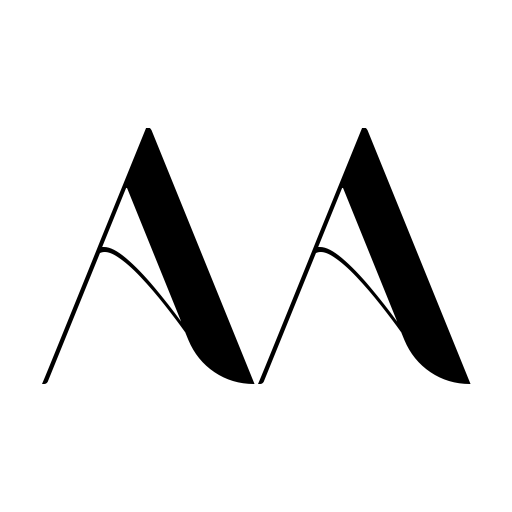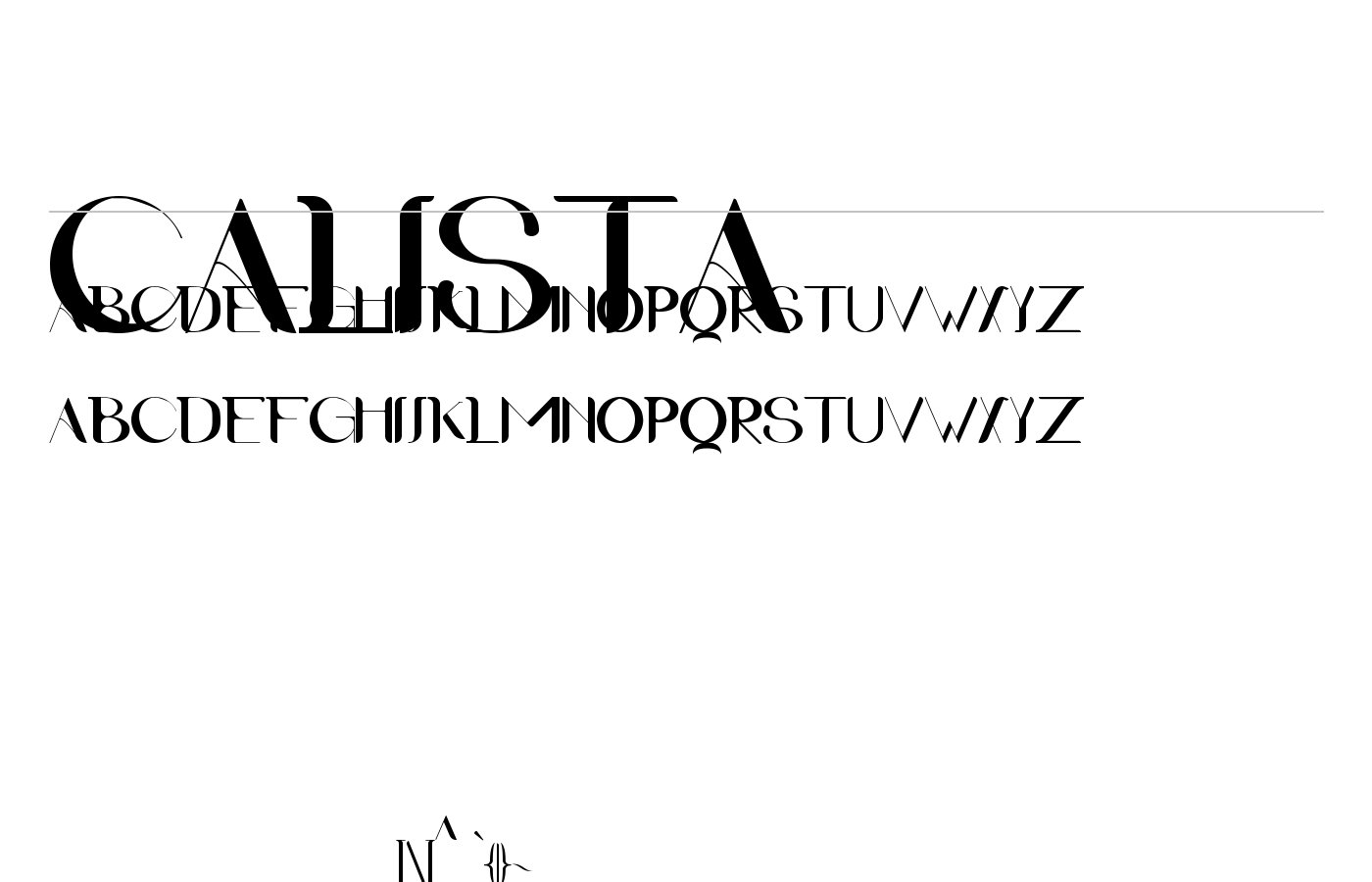
Calista is a sleek serif font with a modern flair, featuring thin, sharp strokes and high contrast between thick and thin lines. Its elegant and slightly condensed letterforms with unique serif details give it a refined, artistic feel, making it perfect for luxury branding, editorial headlines, and sophisticated design projects that require a stylish, contemporary look.
Calista Font
About Calista Font
| Font family | Calista Font |
| Designer | Andang 2021 |